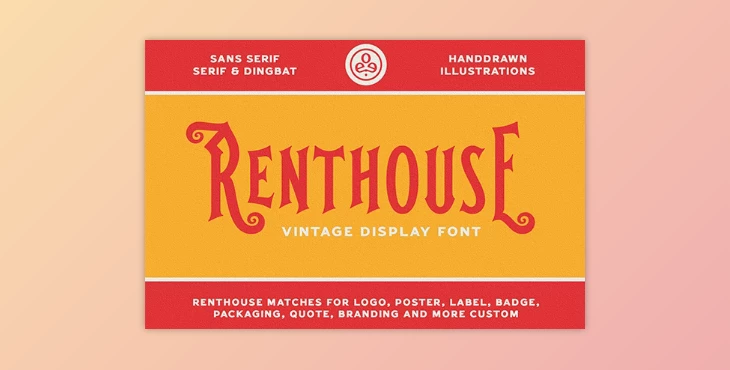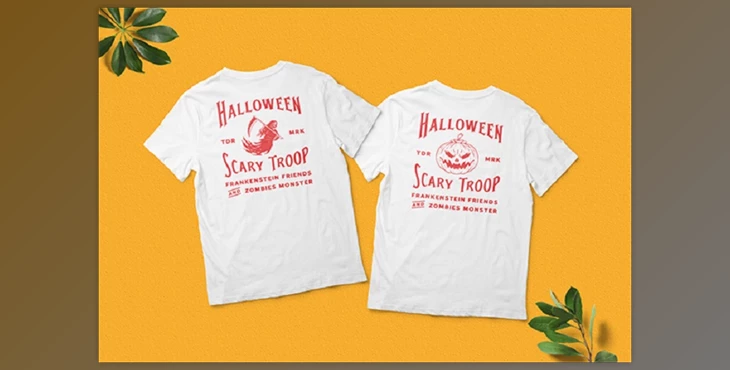
Renthouse vintage display font is a collection inspired by authentic typefaces from vintage labels.
It includes both serif and sans-serif fonts, along with Halloween-themed illustrations. The serif font offers alternates and is suitable for various designs such as logos, posters, labels, packaging, badges, t-shirt branding, quotes, and more.
Renthouse features all-caps, numerals, punctuation, and alternates in serif font; all-caps, numerals, symbols, and punctuation in sans-serif font; multilingual support; and PUA encoding.
The collection comprises three fonts (serif, sans-serif, and Dingbat) and 12 hand-drawn and hand-colored illustrations in Dingbat. Available in .ttf and .otf formats.